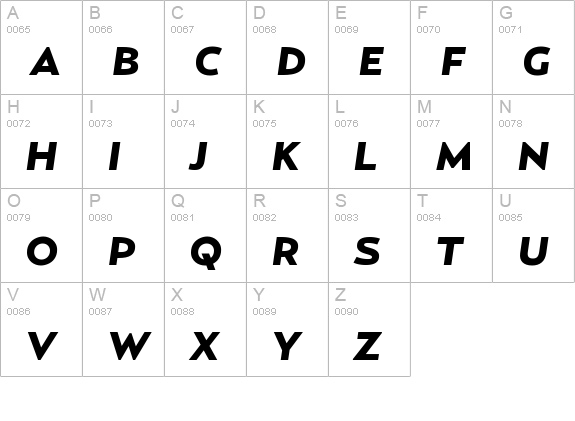
RelayWide-BlackItalic is an exquisite font that exudes elegance and sophistication. Its sleek and modern design is perfect for adding a touch of class to any project. The italicized style adds a sense of movement and dynamism, making it the ideal choice for headings, titles, and logos. This font's wide proportions give it a bold and impactful presence, ensuring that your words make a lasting impression. Its thick, black strokes command attention, while the italicized slant adds a subtle sense of flair and uniqueness. Whether you're designing a magazine layout, creating a branding package, or crafting a digital presentation, RelayWide-BlackItalic will effortlessly elevate your work to new heights. What makes RelayWide-BlackItalic even more appealing is that it is freely available to download at FontsMarket.com. You can easily access this font without any cost, making it a valuable asset for both personal and commercial projects. With its user-friendly installation process, you can quickly incorporate RelayWide-BlackItalic into your design workflow and start creating stunning visuals right away. The versatility of RelayWide-BlackItalic is truly remarkable. It pairs beautifully with other fonts, allowing you to create captivating typography combinations. Its clean and crisp letterforms ensure legibility, even at smaller sizes. Whether you're designing for print or web, this font will adapt seamlessly to any medium, providing a harmonious and polished final result. In conclusion, RelayWide-BlackItalic is a captivating font that combines elegance, boldness, and versatility. Its freely available download at FontsMarket.com makes it an accessible choice for designers and creatives alike. Elevate your projects with this stunning font and watch as your designs come to life with sophistication and style.